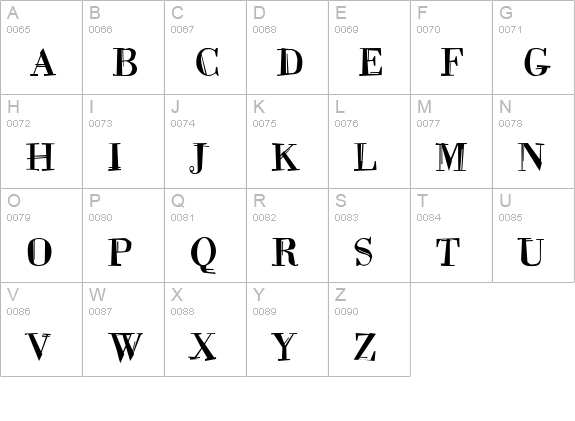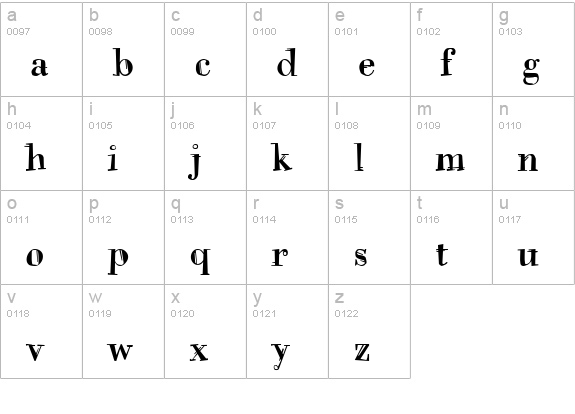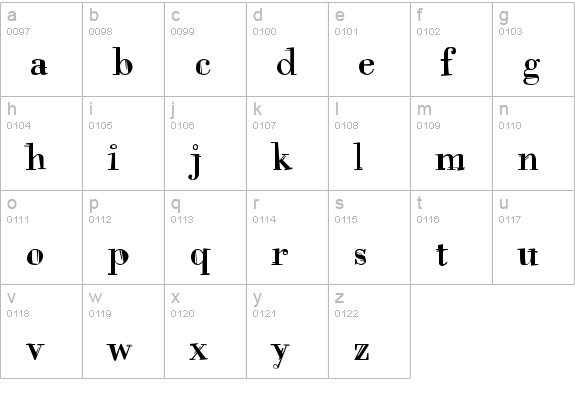
Bottled Fart Font Details
Introducing Bottled Fart font, a whimsical and quirky typeface that adds a touch of humor to your design projects. This font is sure to bring a smile to anyone's face with its playful and lighthearted style. Whether you're working on a poster, greeting card, or social media graphic, Bottled Fart font will definitely make your text stand out. The best part? Bottled Fart font is completely free to download at FontsMarket.com! Simply head over to the website and grab this fun and unique font to add a touch of personality to your creations. Don't miss out on this opportunity to unleash your creativity with Bottled Fart font - the perfect choice for those looking to add a bit of fun to their designs.